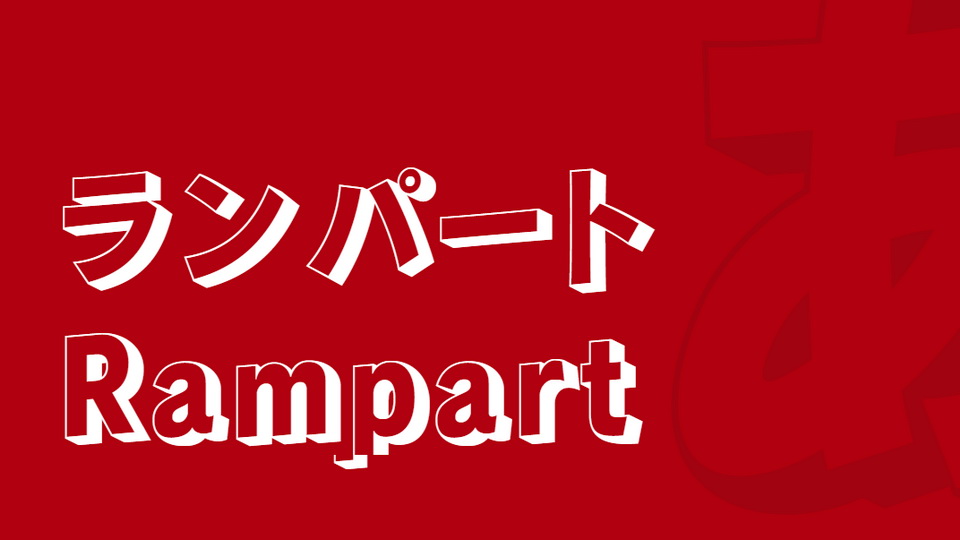
Download Rampart font, a unique outline shadow typeface made in the image of 3-D blocks. Rampart is best used for added impact or to demonstrate strength and stability.